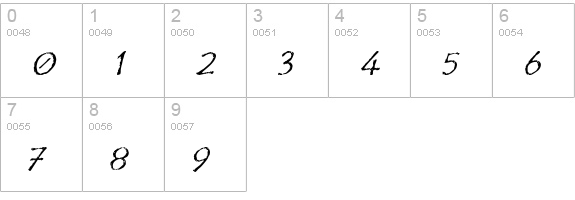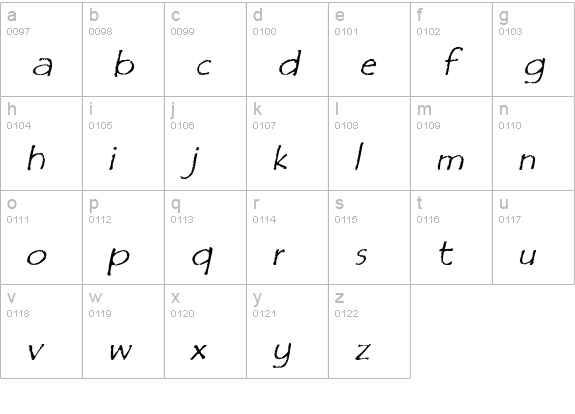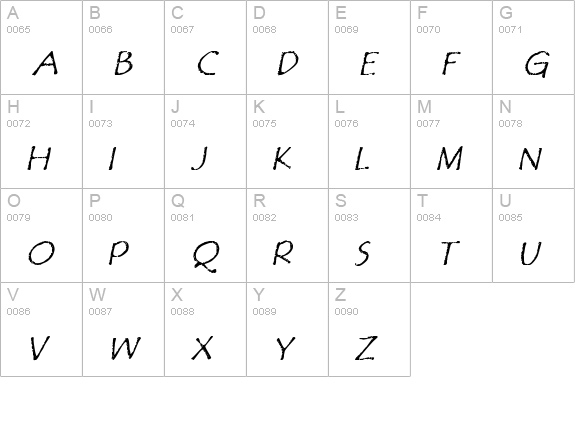
Film Cryptic Font Details
Film Cryptic font is a stunning and versatile typeface that captures the essence of mystery and intrigue. With its unique design and intricate details, this font is perfect for adding a touch of cinematic flair to your projects. The Film Cryptic font is a must-have for designers looking to create eye-catching movie posters, film titles, or any project that needs a touch of dramatic elegance. And the best part? Film Cryptic font is available for free download at FontsMarket.com! Don't miss out on the opportunity to add this captivating font to your collection without spending a dime. Download the Film Cryptic font today and let your creativity soar with its mesmerizing charm and sophistication.